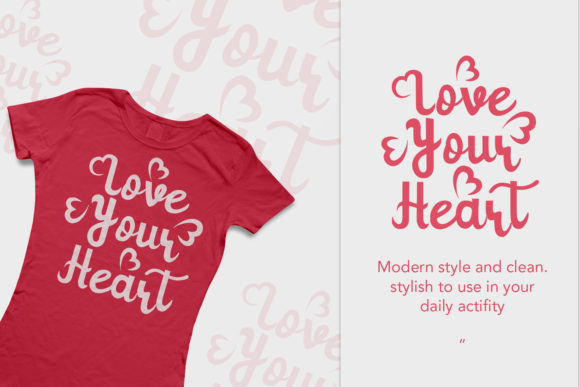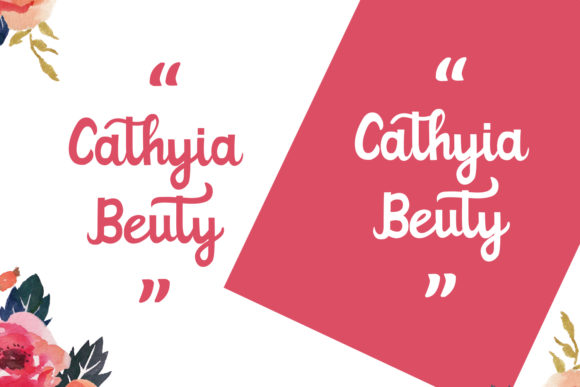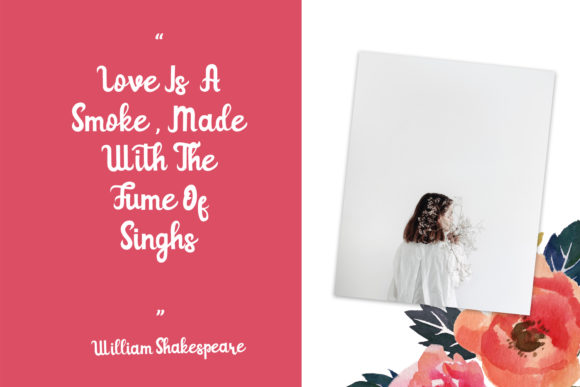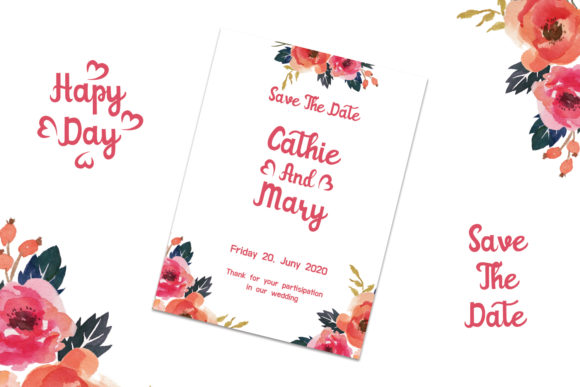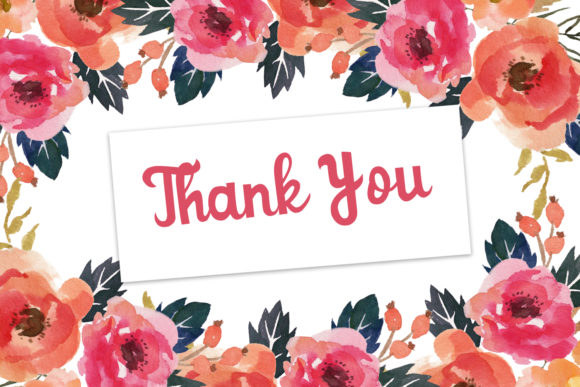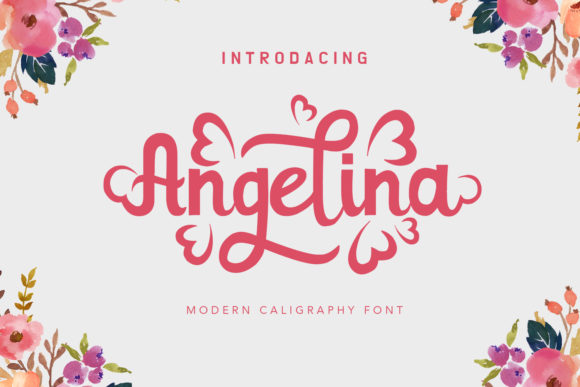
Introducing Angelina Font: The Modern and Clean Handwritten Font for Designers and Crafters
In the world of typography, a good font can make all the difference in the success of a design project. For designers, crafters, and DIY enthusiasts, finding the perfect font that combines style, elegance, and versatility can be a daunting task. However, if you’re looking for a modern and clean handwritten font that can elevate your designs, look no further than Angelina Font.
What is Angelina Font?
Angelina Font is a beautifully crafted handwritten font that exudes a sense of modernity and sophistication. With its clean lines, elegant curves, and precise strokes, this font is perfect for a wide range of design applications, from logos and branding to social media graphics and crafty DIY projects.
Key Features of Angelina Font
So, what makes Angelina Font stand out from the rest? Here are some of its key features:
- Modern and Clean Design: Angelina Font boasts a fresh and contemporary design that’s perfect for designers and crafters who want to create modern and stylish designs.
- Handwritten with Love: This font is carefully handcrafted with attention to detail, giving it a personal and unique touch.
- Versatile and Flexible: Whether you’re designing a logo, creating social media graphics, or working on a crafty DIY project, Angelina Font is the perfect fit.
- Elegant and Sophisticated: With its elegant curves and precise strokes, Angelina Font adds a touch of sophistication to any design.
Why Choose Angelina Font?
With so many fonts available, why should you choose Angelina Font for your design projects? Here are some compelling reasons:
- Unique and Distinctive: Angelina Font is a one-of-a-kind font that’s sure to make your designs stand out from the crowd.
- Easy to Read: The clean and clear design of Angelina Font makes it easy to read, even at small sizes.
- Highly Versatile: This font can be used for a wide range of design applications, from print to digital media.
- Perfect for Branding: With its elegant and sophisticated design, Angelina Font is perfect for branding and logo design.
How to Use Angelina Font in Your Design Projects
So, how can you use Angelina Font in your design projects? Here are some ideas to get you started:
- Logos and Branding: Use Angelina Font to create stunning logos and branding materials that exude elegance and sophistication.
- Social Media Graphics: Create eye-catching social media graphics, such as Facebook posts, Instagram stories, and Twitter headers, using Angelina Font.
- Crafty DIY Projects: Add a personal touch to your crafty DIY projects, such as handmade cards, invitations, and scrapbooking, with Angelina Font.
- Print Design: Use Angelina Font in your print design projects, such as brochures, flyers, and posters, to add a touch of elegance and sophistication.
Whether you’re a seasoned designer or a crafty DIY enthusiast, Angelina Font is the perfect choice for anyone looking to add a touch of elegance and sophistication to their designs. With its unique and distinctive design, ease of use, and high versatility, Angelina Font is sure to be a valuable addition to your design toolkit.